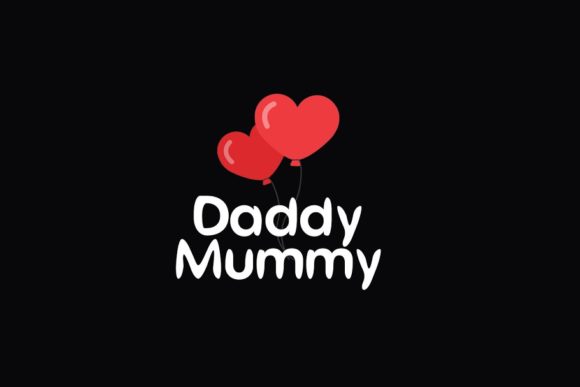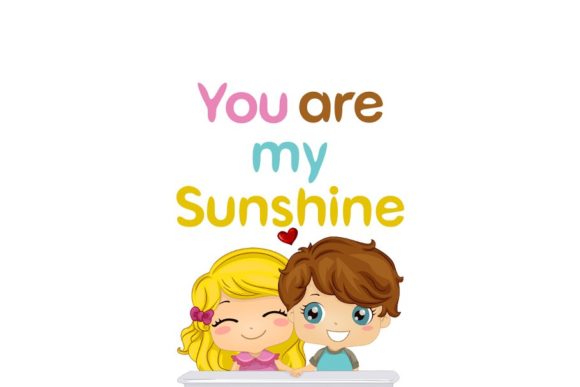
Introduction to Proximate Kiddo Font
Proximate Kiddo is a cute and colorful display font.
Get creative with its childlike playfulness, and use it to brighten up any kids and school project .